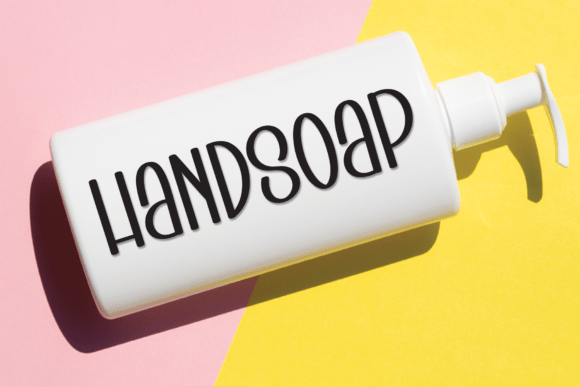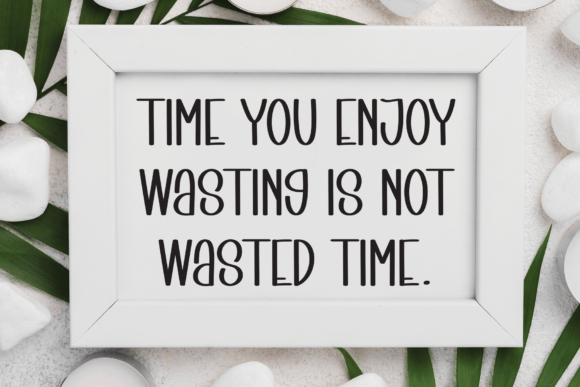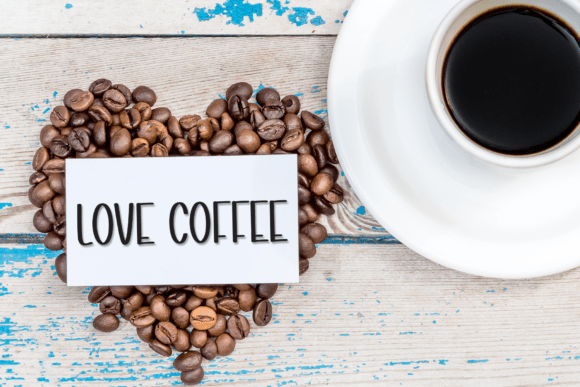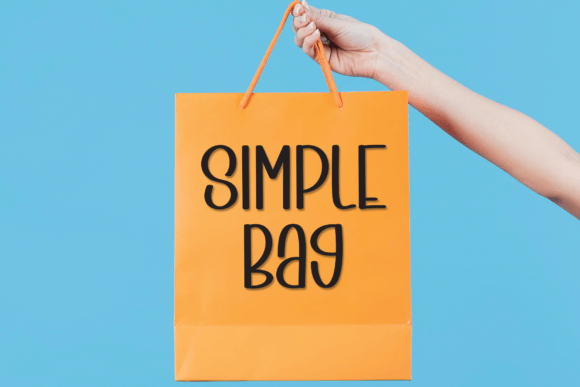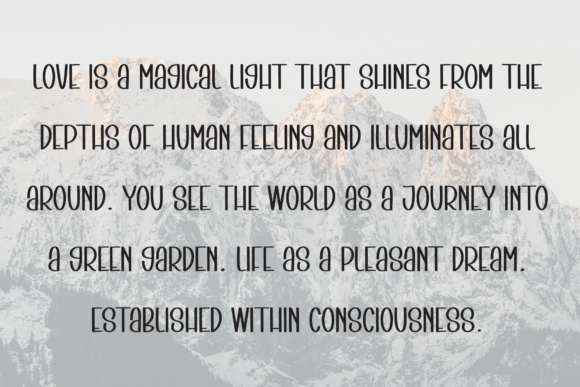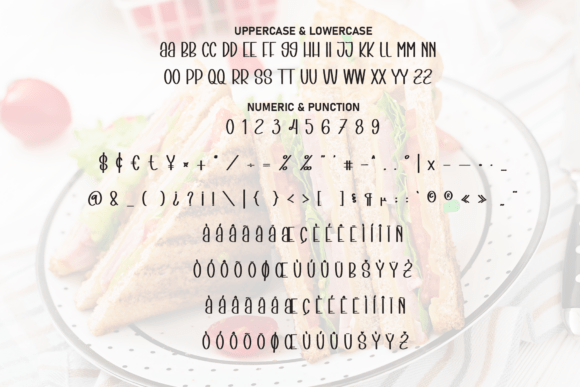
Introducing Delicious Sandwich Font: A Sweet Addition to Your Designs
Are you tired of using the same old fonts in your designs? Look no further! We’re excited to introduce Delicious Sandwich Font, a charming and personable handwritten display font that’s sure to add a dash of joy and endearing flair to any project. This delightful font is perfect for designers and crafters who want to create visually enchanting experiences for their audience.
A Playful Aesthetic that Brings Designs to Life
Delicious Sandwich Font exudes a delightful and playful aesthetic that’s sure to capture the hearts of your audience. Its sweet and charming lettering effortlessly weaves a thread of sweetness, making it perfect for designs that require a touch of whimsy and fun. Whether you’re working on wedding invitations, greeting cards, or any creative project, this font is sure to breathe life into your design.
Delicious Sandwich Font is particularly well-suited for wedding invitations and greeting cards. Its playful and charming aesthetic makes it perfect for couples who want to add a touch of whimsy and romance to their special day. Imagine sending out wedding invitations that are not only informative but also visually stunning, setting the tone for a beautiful and memorable celebration.
The versatility of Delicious Sandwich Font is one of its most appealing features. It’s not just limited to wedding invitations and greeting cards; it can be used in a wide range of creative projects, from branding and packaging to social media graphics and blog posts. Whether you’re a designer, crafter, or DIY enthusiast, this font is sure to inspire you to create something truly special.
What Makes Delicious Sandwich Font Special?
So, what sets Delicious Sandwich Font apart from other fonts? Here are a few key features that make it a standout:
- Handwritten display font: Delicious Sandwich Font is a beautiful, handwritten display font that’s perfect for adding a personal touch to your designs.
- Playful aesthetic: This font exudes a playful and charming aesthetic that’s sure to capture the hearts of your audience.
- Versatile: Delicious Sandwich Font can be used in a wide range of creative projects, from wedding invitations to social media graphics.
- Easy to read: Despite its playful aesthetic, Delicious Sandwich Font is easy to read, making it perfect for designs that require a clear and concise message.
Tips for Using Delicious Sandwich Font
Here are a few tips for getting the most out of Delicious Sandwich Font:
- Use it sparingly: While Delicious Sandwich Font is beautiful, it’s best used sparingly. Use it as a headline or title font, and pair it with a simpler font for body text.
- Experiment with colors: Delicious Sandwich Font looks great in a variety of colors, so don’t be afraid to experiment and find the perfect hue for your design.
- Pair it with other fonts: Delicious Sandwich Font pairs well with a range of other fonts, so feel free to get creative and try out different combinations.
In conclusion, Delicious Sandwich Font is a charming and personable handwritten display font that’s sure to add a dash of joy and endearing flair to any design. Its playful aesthetic, versatility, and ease of use make it perfect for designers and crafters who want to create visually enchanting experiences for their audience. So why not give it a try and see the difference it can make in your designs?